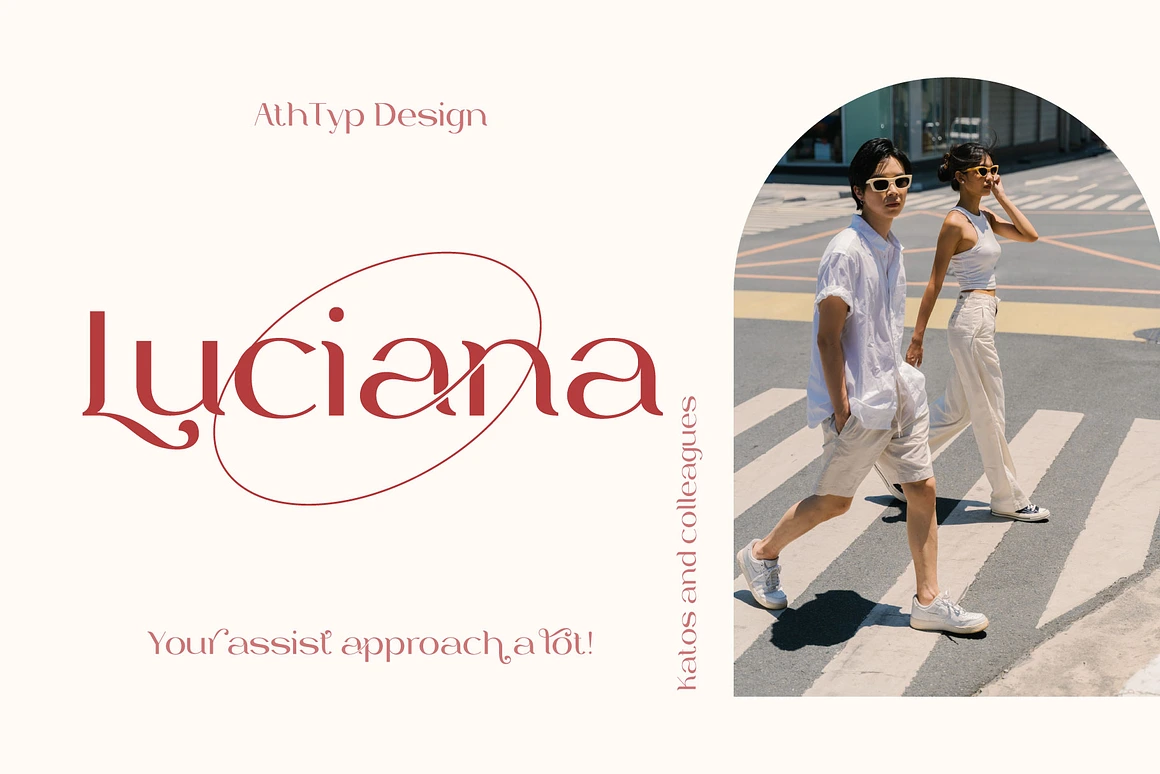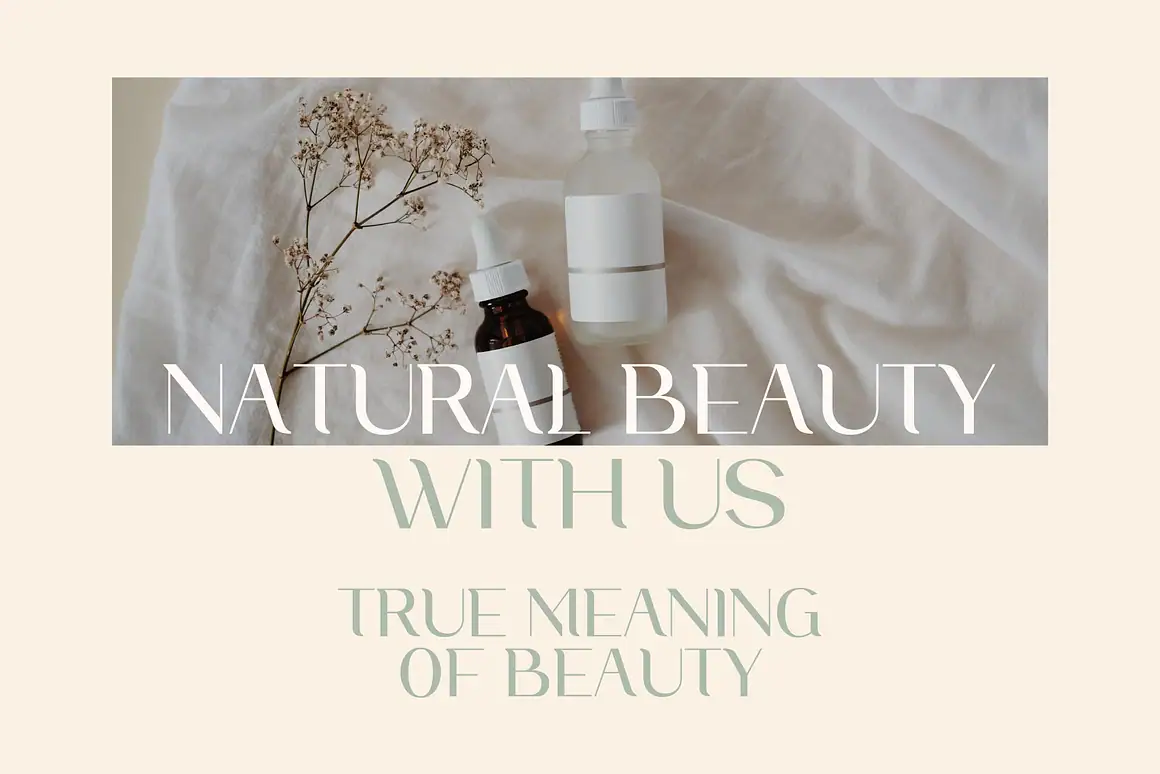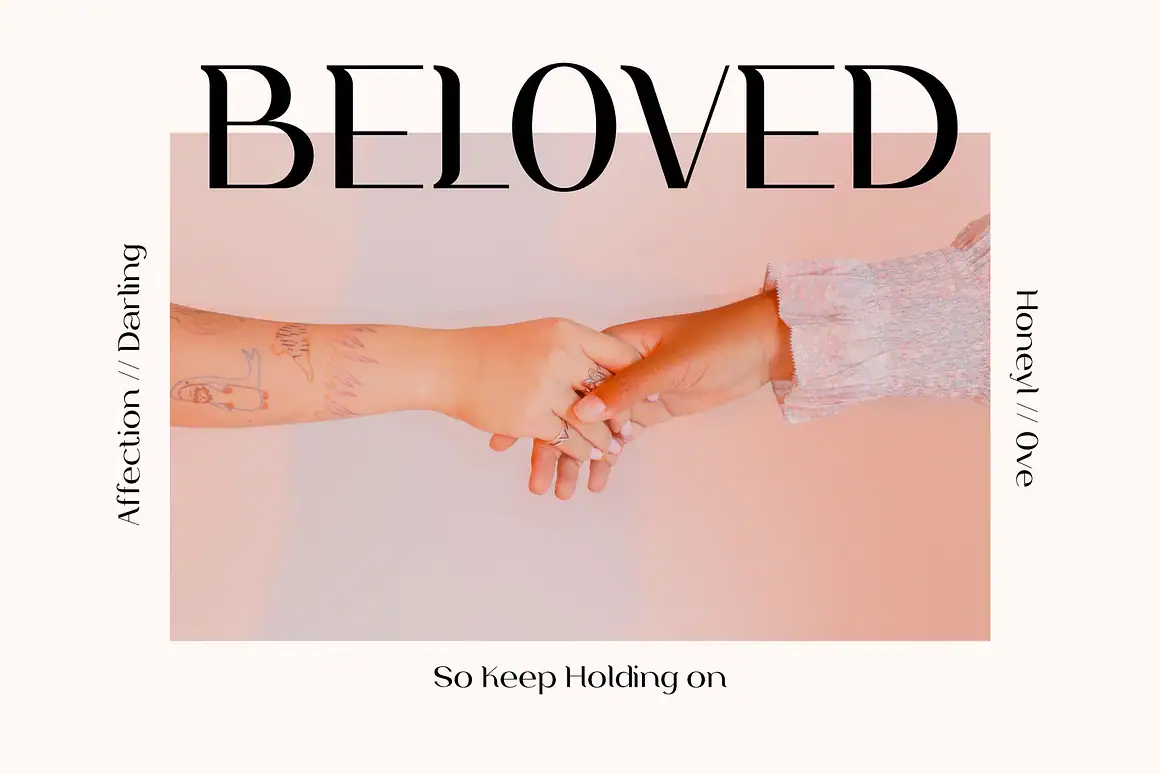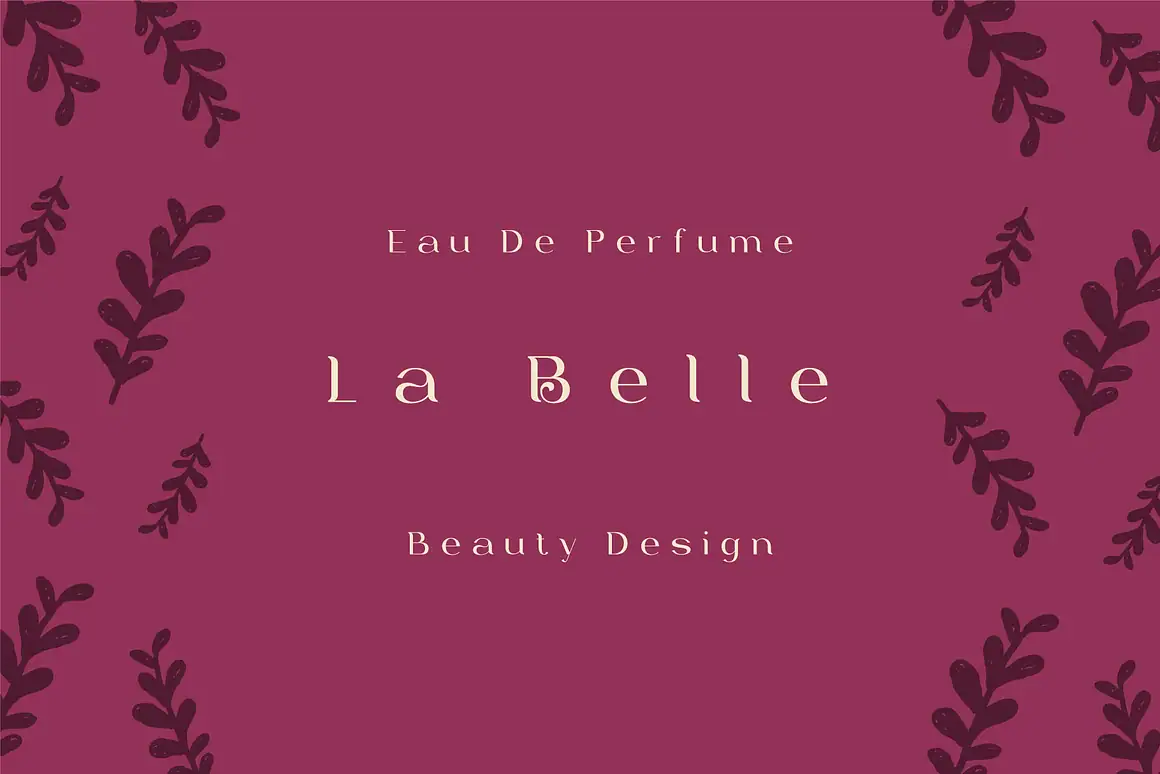
Belajor Beautiful Sans Serif Font
Belajor
Belajor Beautiful Sans Serif Font featuring a full set of uppercase and lowercase letters, multilingual characters, numbers, punctuation, and stylish ligatures. Designed with elegance and versatility in mind, Belajor Beautiful Sans Serif is perfect for posters, magazines, beauty branding, luxury logos, and editorial designs. Its swash glyphs add a sophisticated touch to any project.
Features:
✔ Complete Character Set: Uppercase & lowercase letters
✔ Numerals & Punctuation: Includes a wide range of symbols and ligatures
✔ Swashes: Lowercase letters include elegant ending swashes
✔ Multilingual Support: ä ö ü Ä Ö Ü ß ¿ ¡